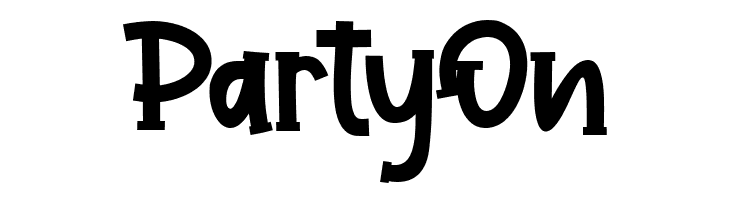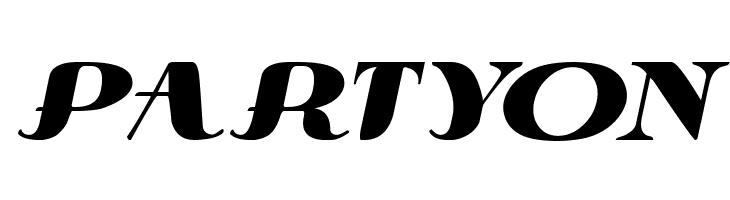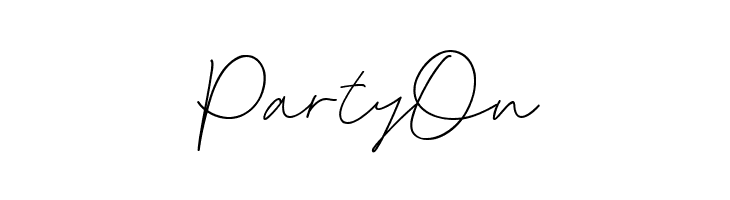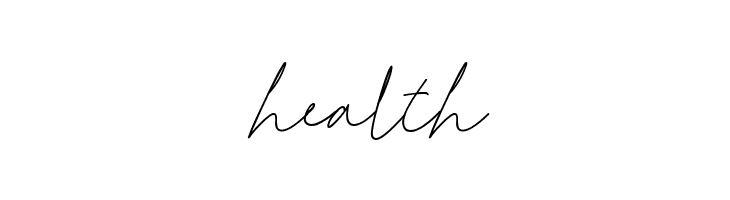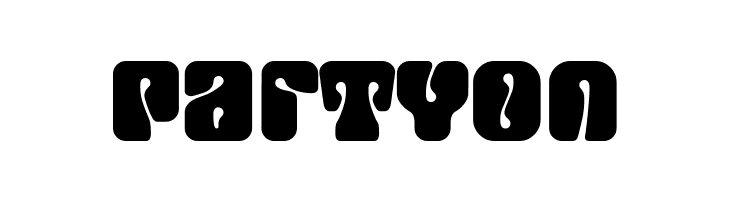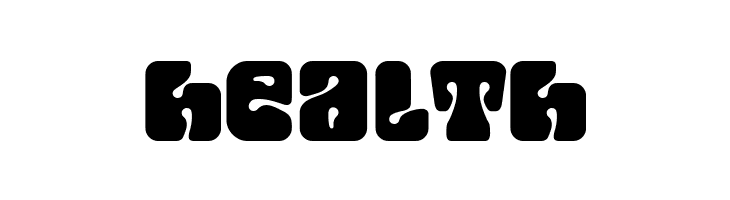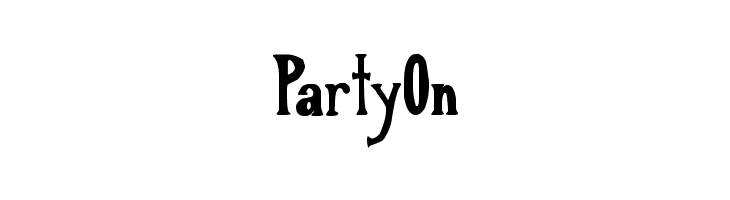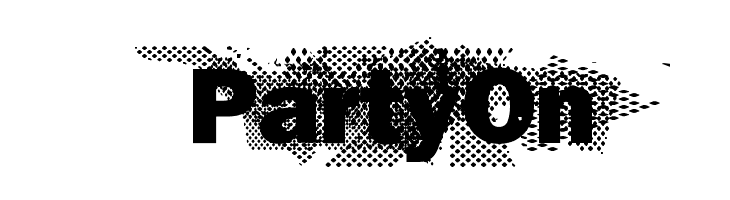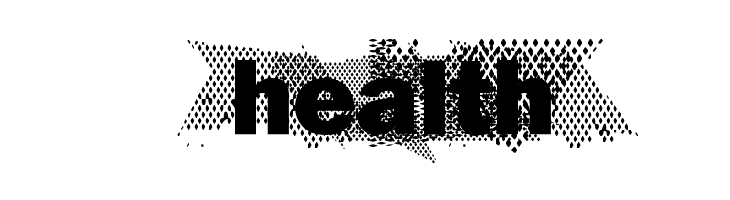
• Lova Power
( Fonts by HansCo )
A bold, rounded font with a playful retro aesthetic.
• Love America
( Fonts by Stefani Letter )
A playful, bold, and handwritten-style font with a whimsical touch.
• Love Cats Italic
A bold, italic font with sweeping curves and a modern calligraphic style.
• Love Jessica
A delicate, flowing script font with an elegant handwritten style.
• Love Runs Out
• LOVE til KILLED
( Fonts by Andrew Hart - dirt2.com )
• Lovebuzz
( Darrell Flood )
A bold, handwritten-style font with dynamic, slanted characters.
• Lovecraftimus
A bold, geometric font with a futuristic and tech-inspired design.
• Lovecraftimus
• Lovelings